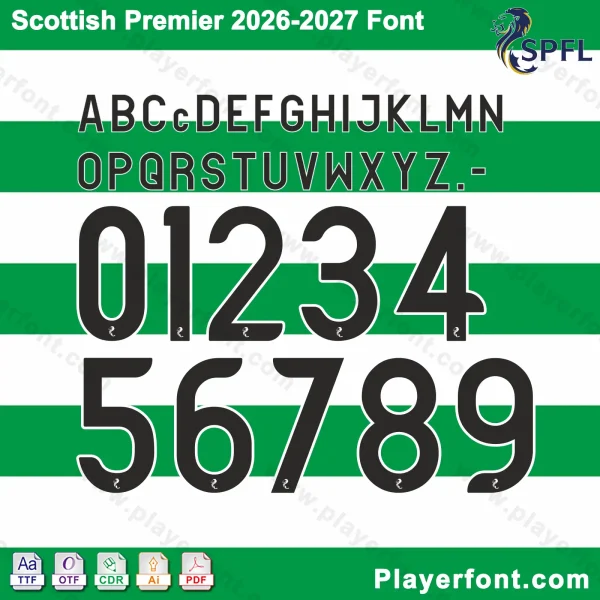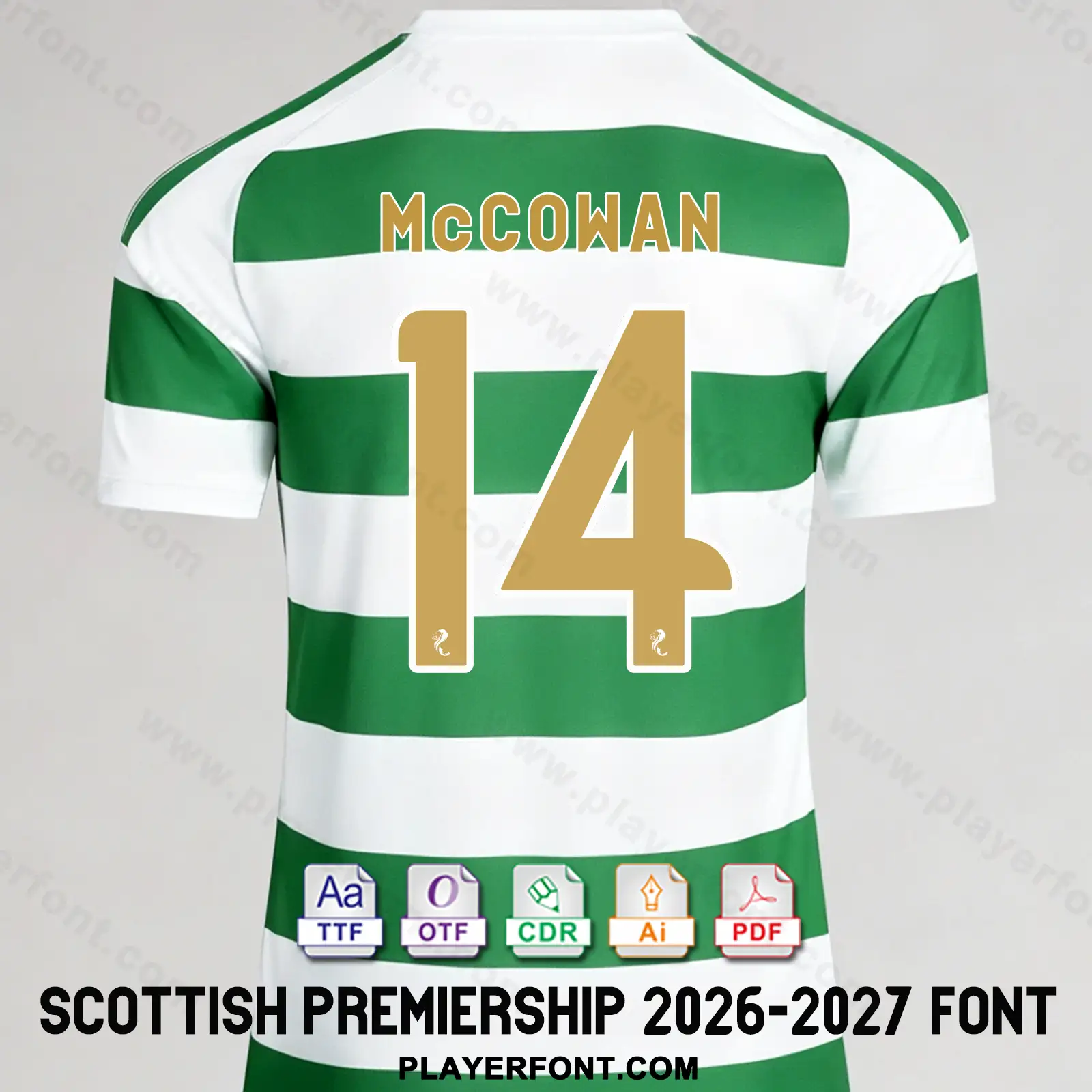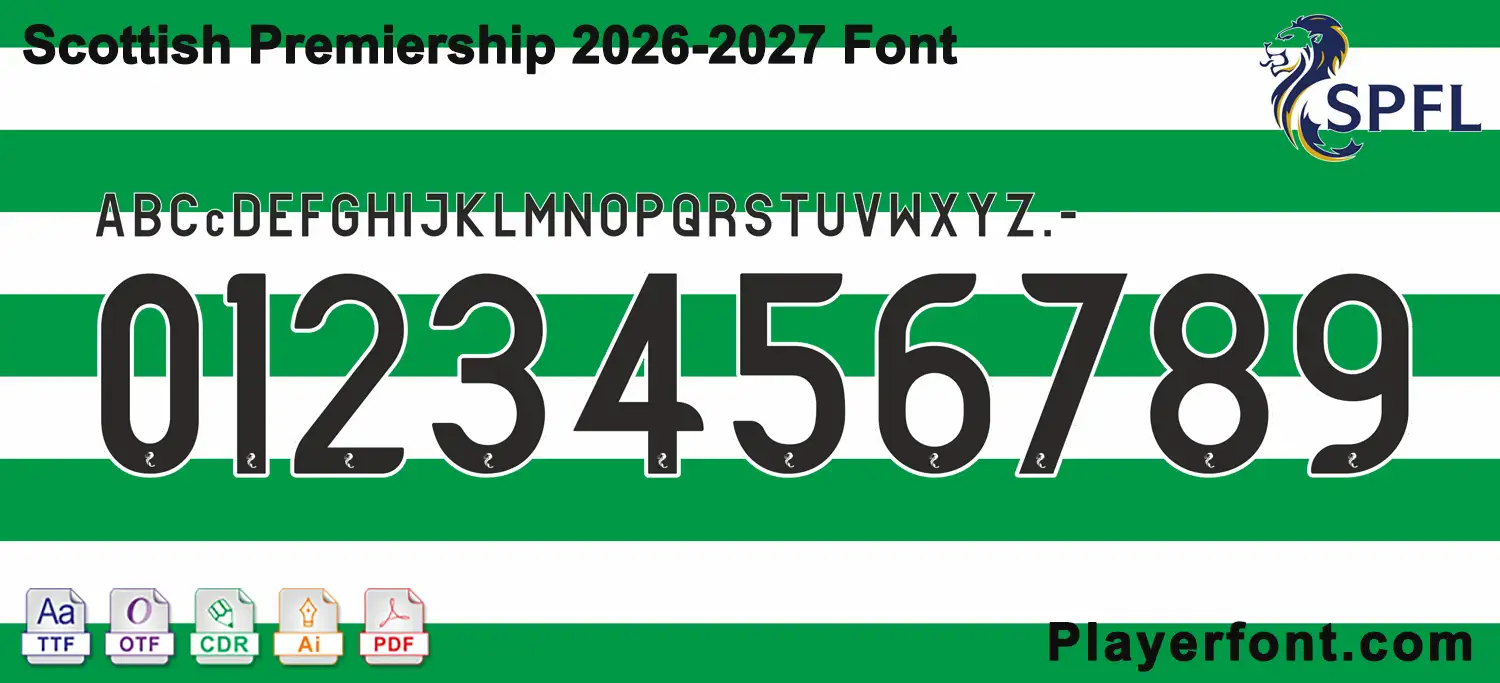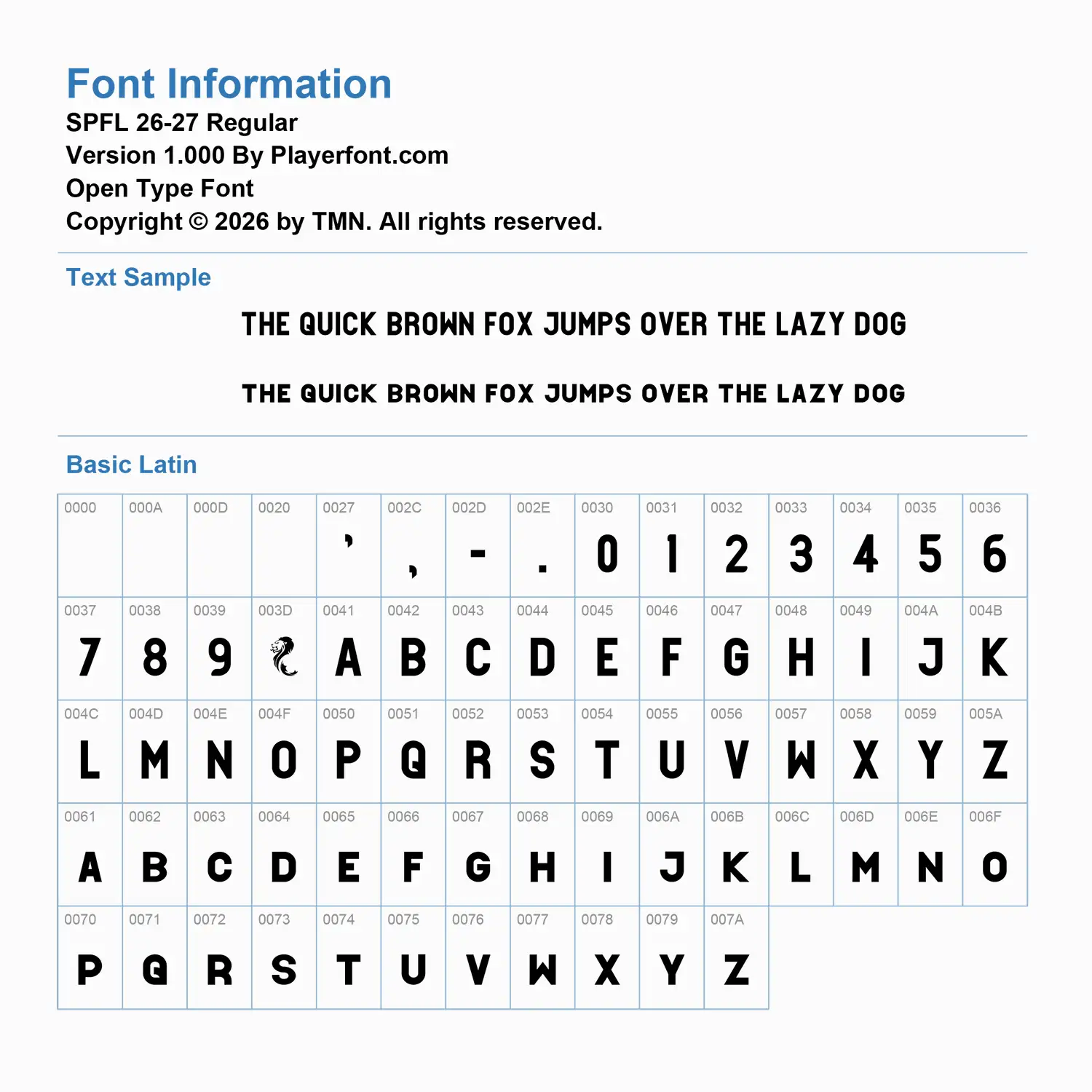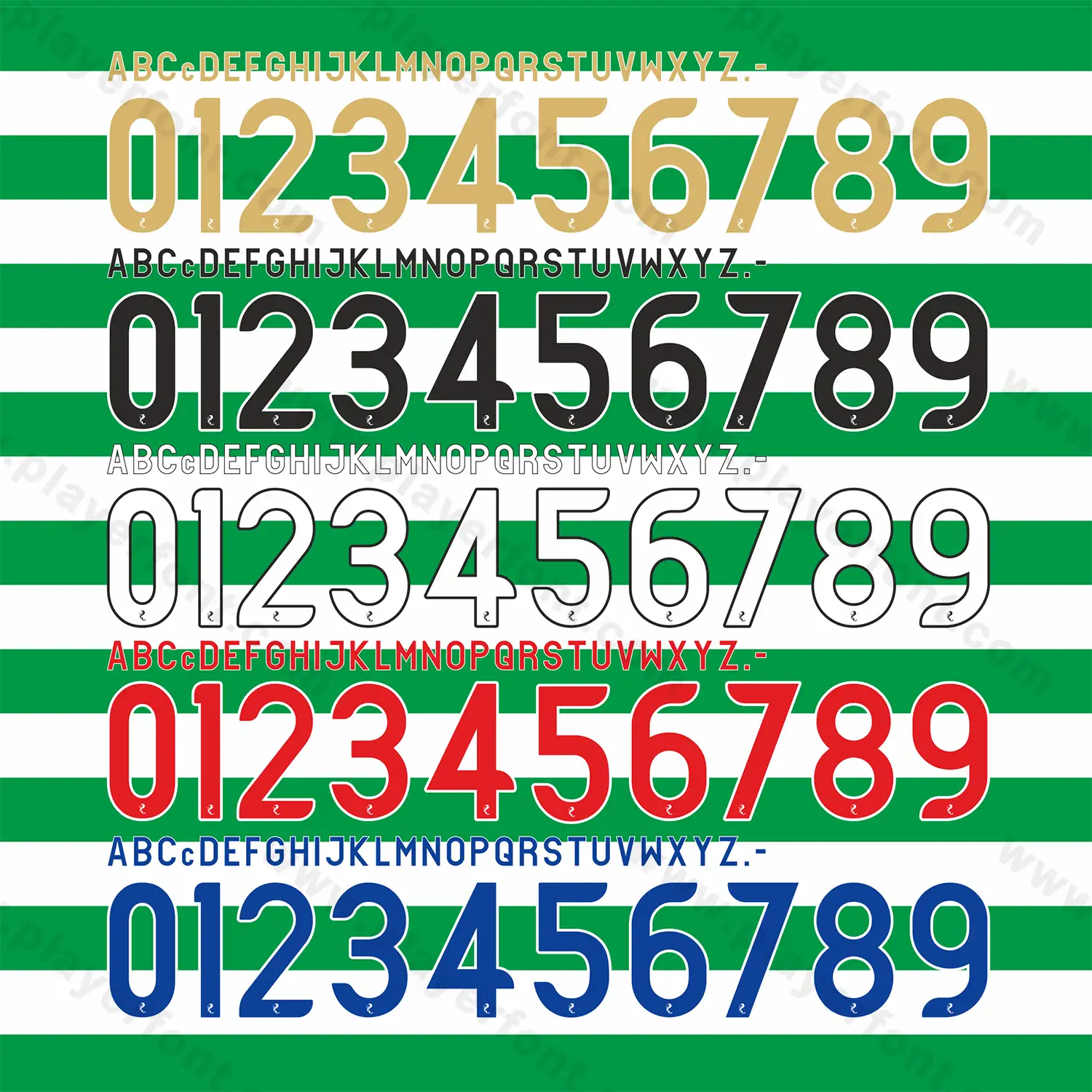
Scottish Premiership SPFL 2026-2027 Font Kit Download
Download the premium Scottish Premiership SPFL 2026-2027 Font Kit today! This complete typography pack includes high-quality TTF, OTF, AI, CDR, and PDF vector files, fully compatible with design software and garment printing. Features the complete basic latin character string and sleek, modern league numbers embedded with the unique SPFL lion crest detail. Perfect for kit designers, sports customizers, and Scottish football fans.
Horizontal vector layout template of Scottish Premiership 2026-2027 font kit typography string.
Horizontal Vector Template Banner for the SPFL 2026-27 Font
Elevate your sports jersey mockups, football custom graphics, and vector apparel printing projects with the brand new Scottish Premiership SPFL 2026-2027 Font Download. Masterfully engineered by Playerfont.com, this high-performance typography set replicates the official league style featured across the pitch for the 2026-27 Scottish football season.
Key Typography Features & Character List:
• Basic Latin: Contains the complete A-Z uppercase character set, standardized numbers (0-9), punctuation marks, and standard hyphens.
• Authentic League Details: The unique SPFL lion crown crest is intricately embedded right into the base of each jersey number for premium accuracy.
• Multi-Color Customization: Fully tested layout adapts perfectly to multiple color combinations (Gold, Black, White, Red, Blue) with solid borders or contrast outline variations.
Design Feature Rounded Block Geometry with Bottom Embedded League Crest